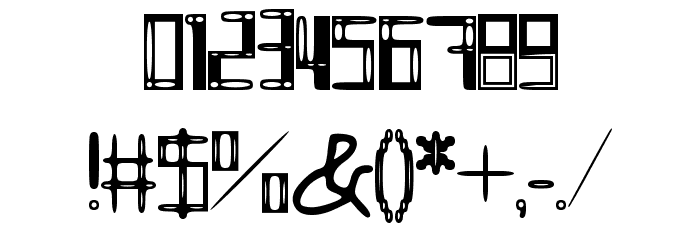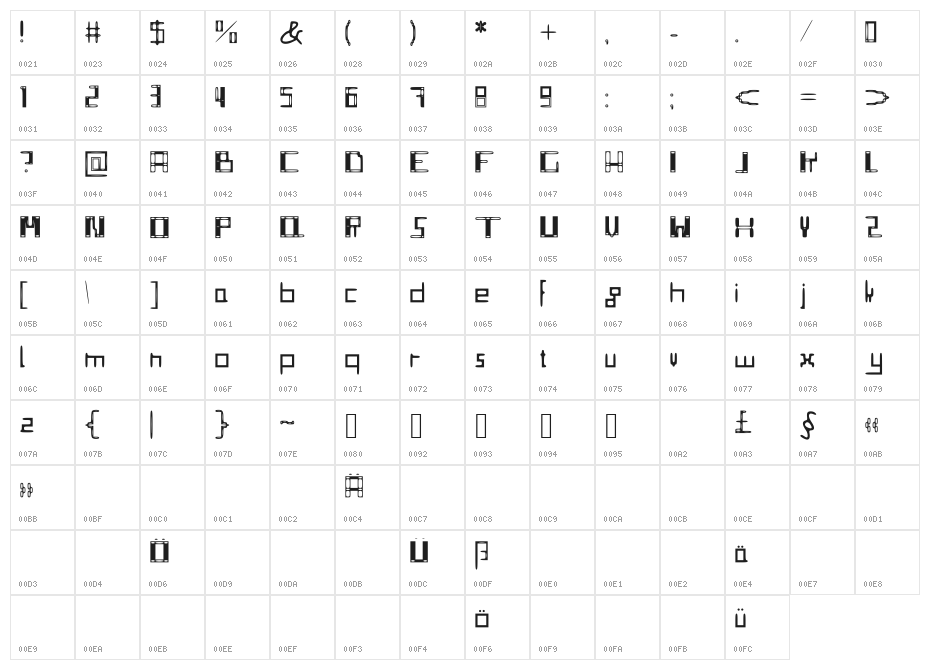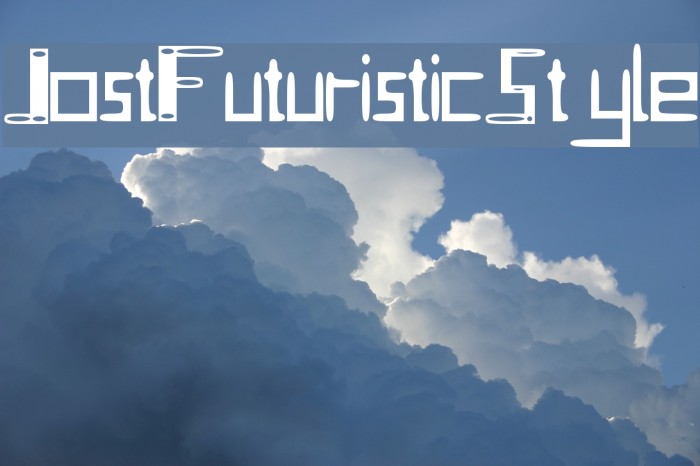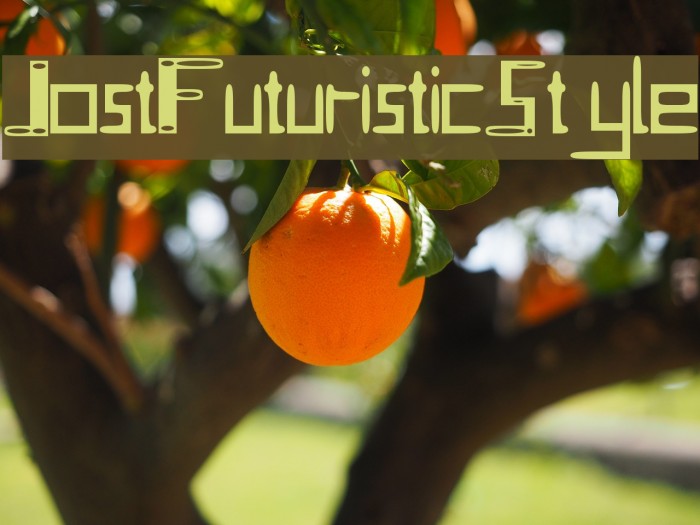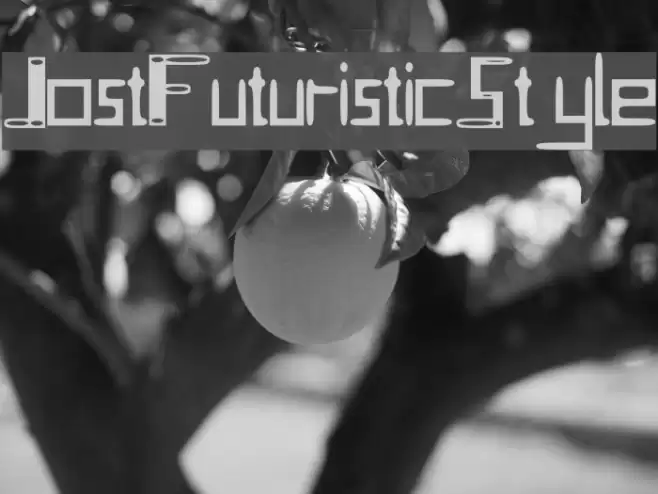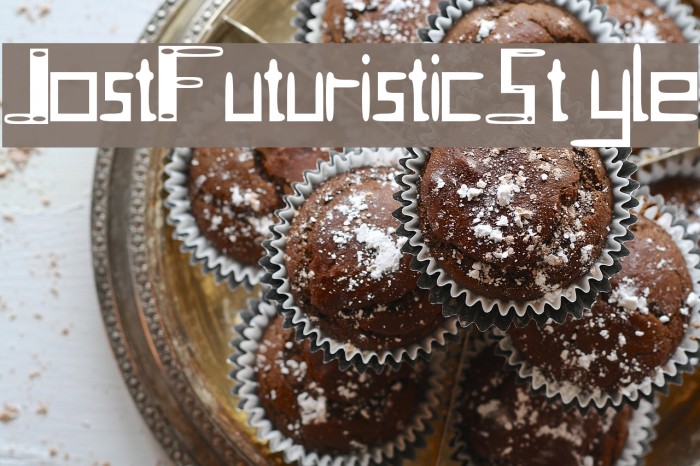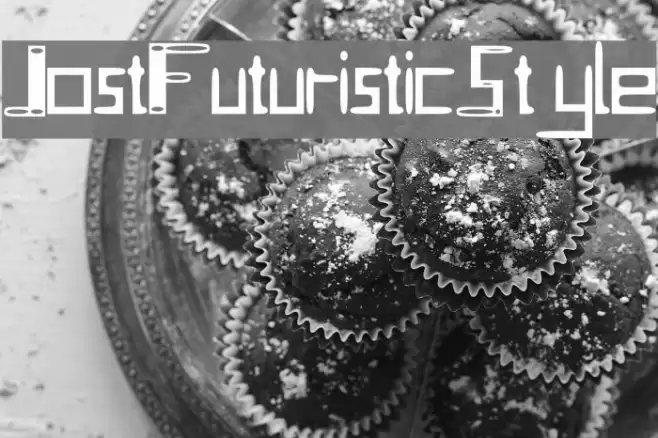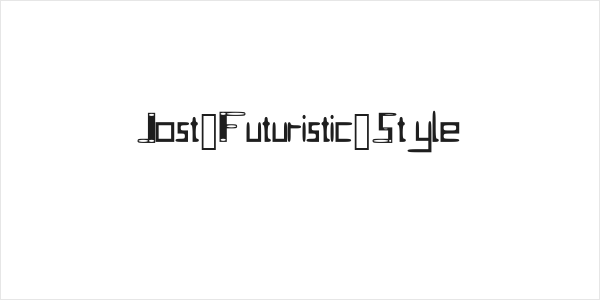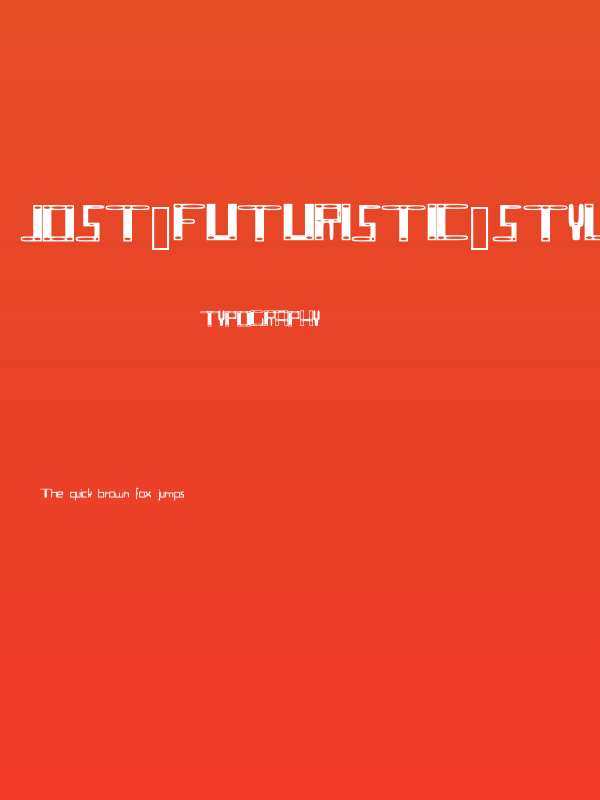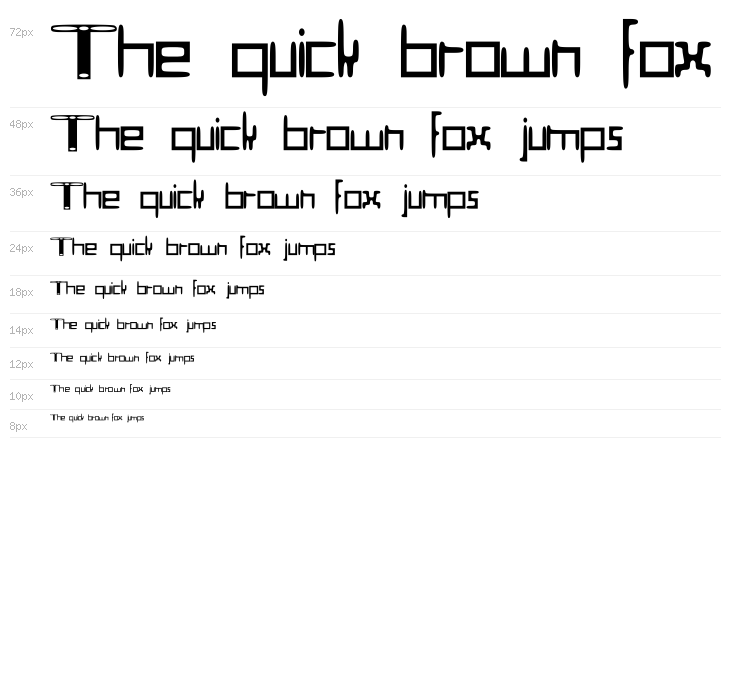
Jost_Futuristic_Style Font
Jost_Futuristic_Style Description
This font features a futuristic and geometric design with a unique blend of sharp angles and rounded edges. The uppercase letters are bold and structured, with a distinct pattern of hollow spaces within the strokes, giving them a modern and digital appearance. The lowercase letters maintain a similar style but are more streamlined and elongated, adding a sleek and contemporary feel. The numerals are consistent with the overall design, featuring the same hollow spaces and geometric shapes. Special characters are creatively designed, incorporating the futuristic theme with a playful twist. This font is perfect for projects that require a modern and innovative look.